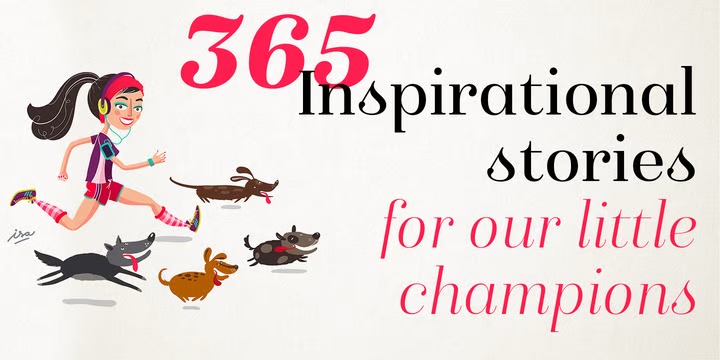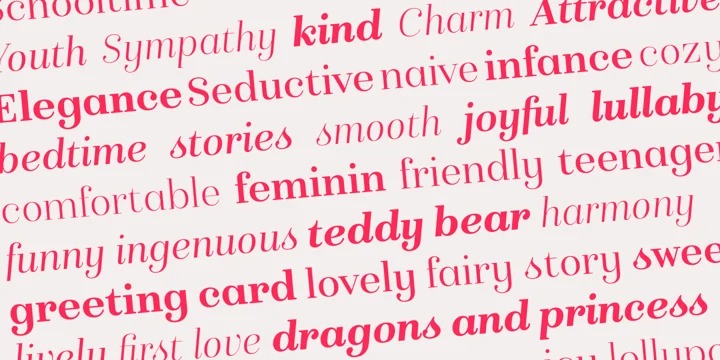
Isabel Font Family
Isabel Serif Font is a humanist serif type family that has the heritage of classic Old Style and Transitional type while having the crisp lines and functionality of contemporary fonts. The purpose of Isabel is to combine all the nice and friendly features of the simple letters that the teachers teach to the pupils at primary school, as they starting to learn to read, together with the normal editorial fonts we read every day. In this way it generates a very joyful serif font, or even friendly font, with some conservative aspects. In other words, Isabel is a font that, despite of being a “classic features” typography, is proud to show its innocent and ingenuous elements, this gives to the font a new point of view. The family is composed of 3 parts: the regular version, the italic version and the unicase version. Each one of them has 5 weights, 551 characters and is composed of 208 languages.